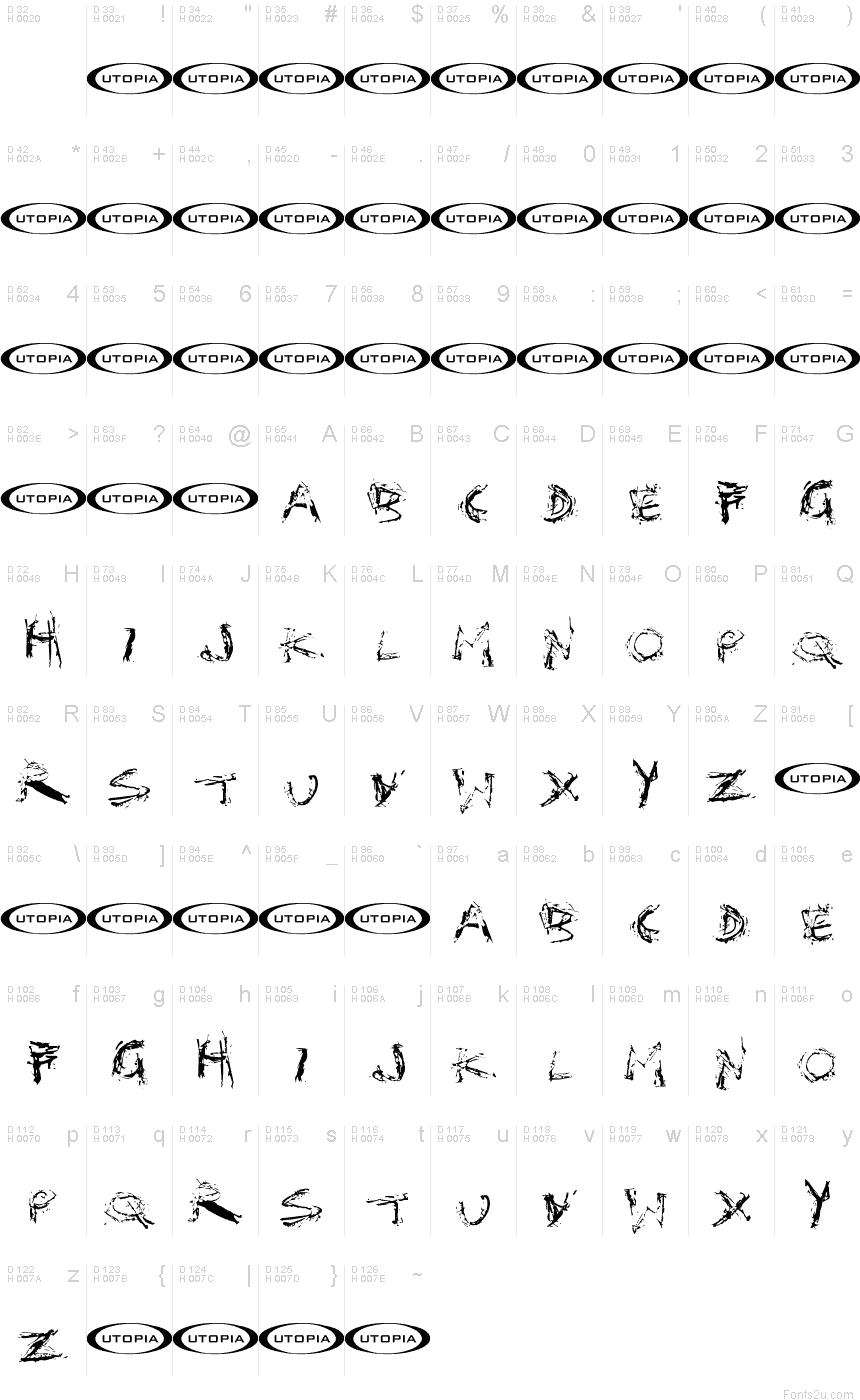
Distortia
Distortia font by Utopiafonts is a free eroded display typeface that looks like it’s been dragged across concrete and splattered with ink. Each letter feels shredded and warped, with sharp hooks and ragged edges that give text a frantic, unstable energy. It’s noisy, chaotic, and instantly grabs the eye, even in a quick glance.
Using Distortia, this free font comes into its own on horror movie titles, metal or punk album covers, gig posters, underground zines, escape-room branding, and thriller game logos. The rough texture adds tension and grit, so keep it large and sparse for maximum impact, then pair it with a plain, modern sans serif for supporting text to keep things readable.